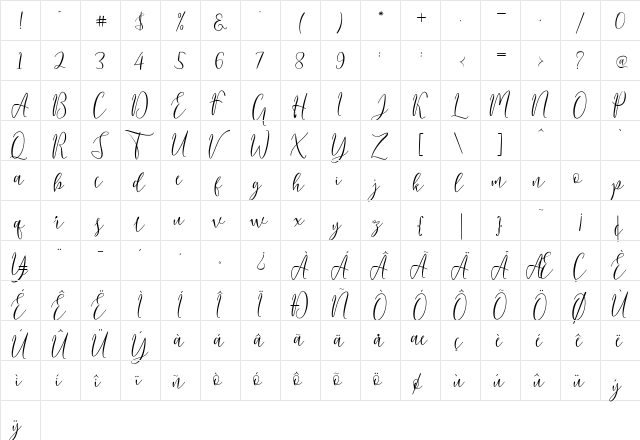
Berlinsa Script Regular
| Designer | Juni Fadil Putra |
Design Context for Berlinsa Script Typeface
Berlinsa Script brings a calligraphic fluidity to the page — its connecting strokes and expressive curves give it an unmistakably human quality.
Font Pairing: Combine Berlinsa Script with a simple geometric sans for maximum contrast — the tension between flowing curves and clean structure is a classic typographic pairing.
Pro Tip: Use Berlinsa Script for short runs of text — names, titles, or taglines. Extended body copy in script faces tires the eye quickly.